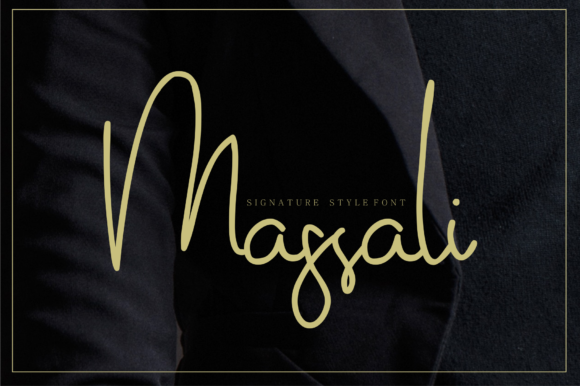
Introducing Massali, the captivating script font that will ignite your creative spark and elevate your designs. This stunning font, meticulously crafted by mrkhoir012, embodies timeless elegance and versatility.
Its graceful lines and delicate curves flow effortlessly, adding an air of sophistication to every project. Whether you're designing invitations, logos, or creating stunning visual content, Massali's charm will leave a lasting impression.
With its ease of use and seamless pairings with various font styles, Massali empowers you to unleash your creativity effortlessly. Its adaptability makes it the perfect choice for a wide range of design endeavors, from personal projects to commercial masterpieces.